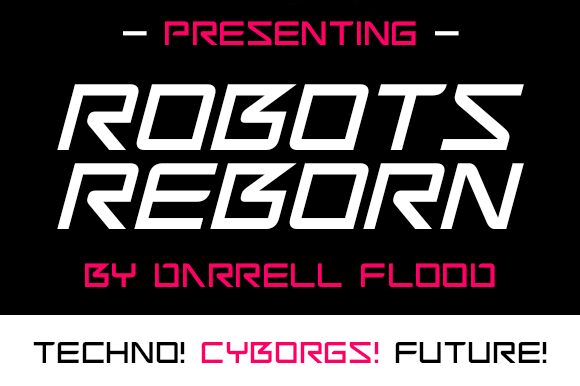
Robots Reborn Italic
Robots Reborn Italic is a wide, light, futuristic display font designed by Darrell Flood. Perfect for sci-fi projects that need a modern twist, Robots Reborn Italic will give your designs an exciting edge. With its bold curves and dynamic letterforms, it's perfect for logos, posters and product packaging.